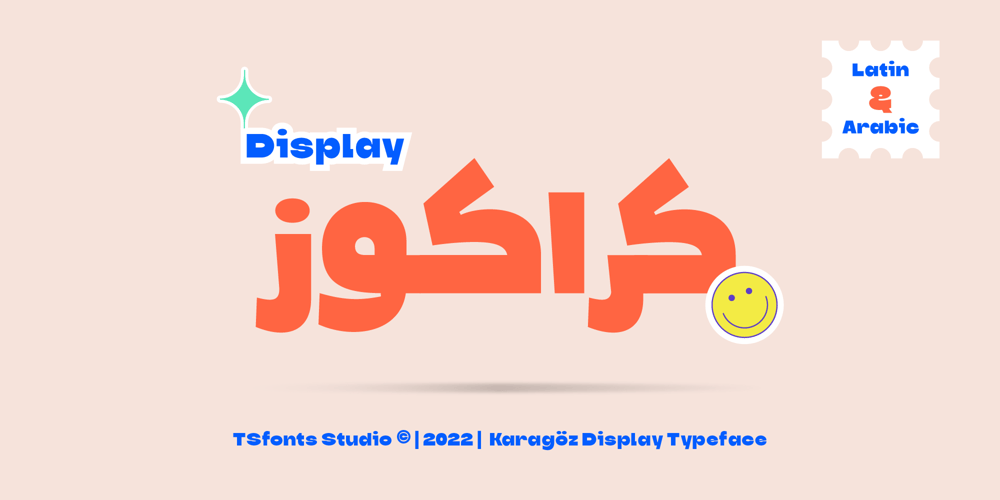
TS Karagoz
TS Karagoz font
TS Karagoz Font Family was designed by Tarek Alsawwa and published by TSfonts Type Studio. TS Karagoz contains 1 styles and family package options. Introduction:Karagoz is a playful and fun display typeface that has strong and powerful. It is designed to be bold and large. Karagoz is perfect for video games, cartoons, t-shirts, children’s books, captions, headlines, and posters. Weights and Languages:It consists of 1 Weight. It supports Latin, Arabic, Persian, and Urdu. Usage:Karagoz Font is used in headlines, posters, websites, social media, and visual identities. Designing & Developing:TSfonts Type Studio.